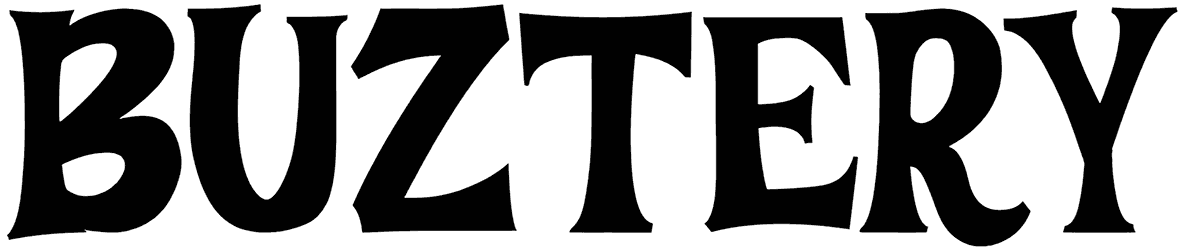
Buztery Font
This would be more interesting to have scary text with whimsy words, and this Halloween font could provide this situation. With a bold hand-drawn face, Buztery has naughty letters and a spooky vibe. Even with no backup of lowercase letters, this horror font is capable of illustrating your intended projects, for instance, posters, invitation cards, illustrations, and along with others.